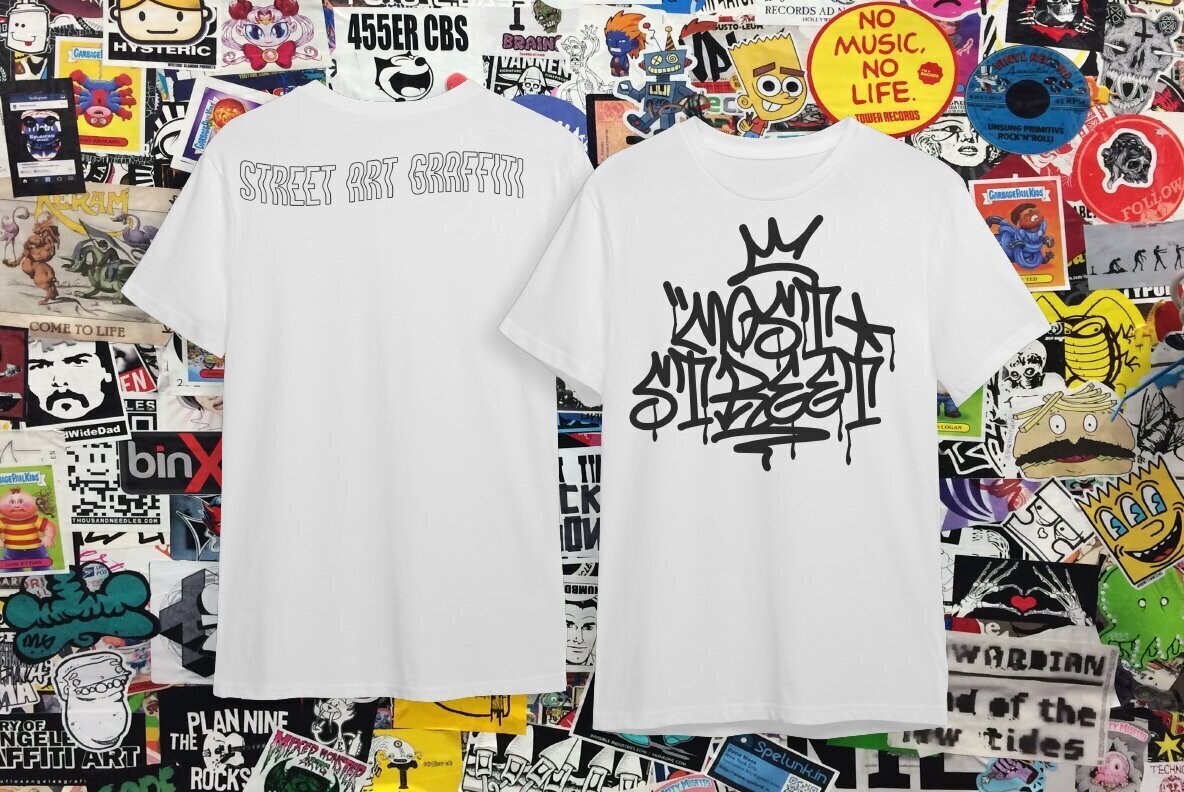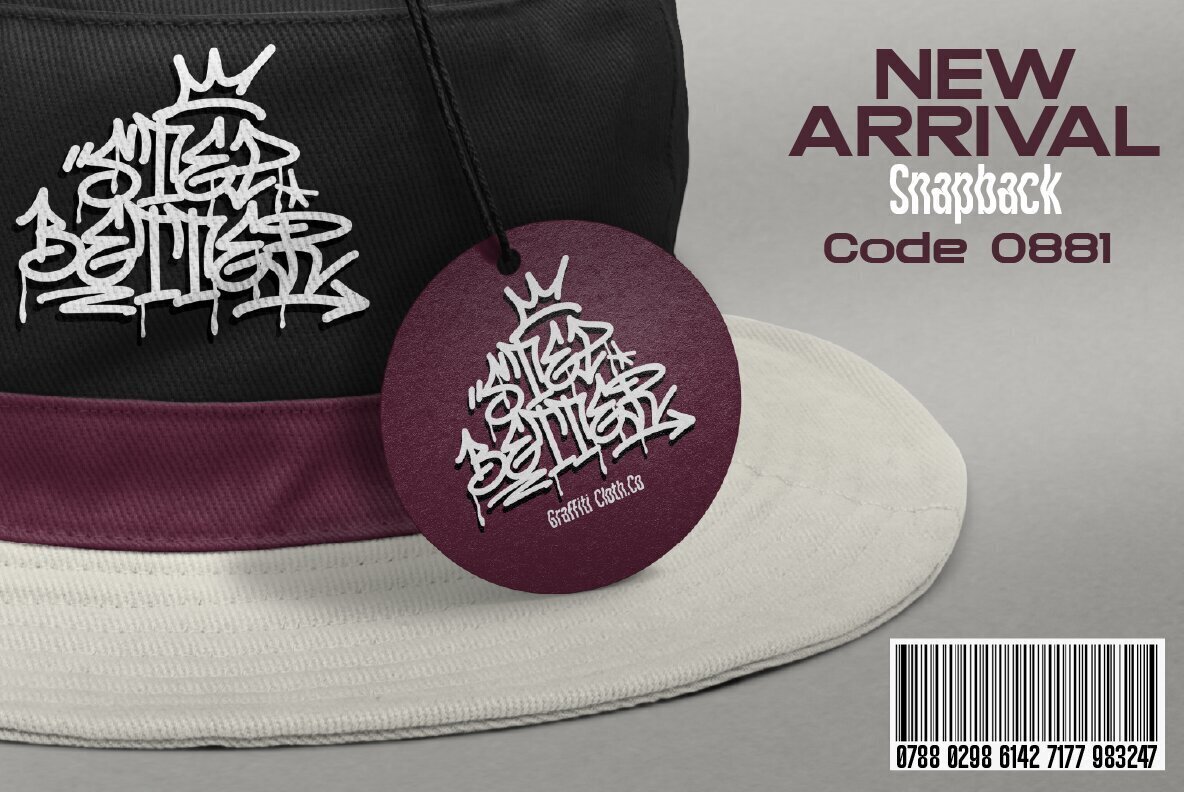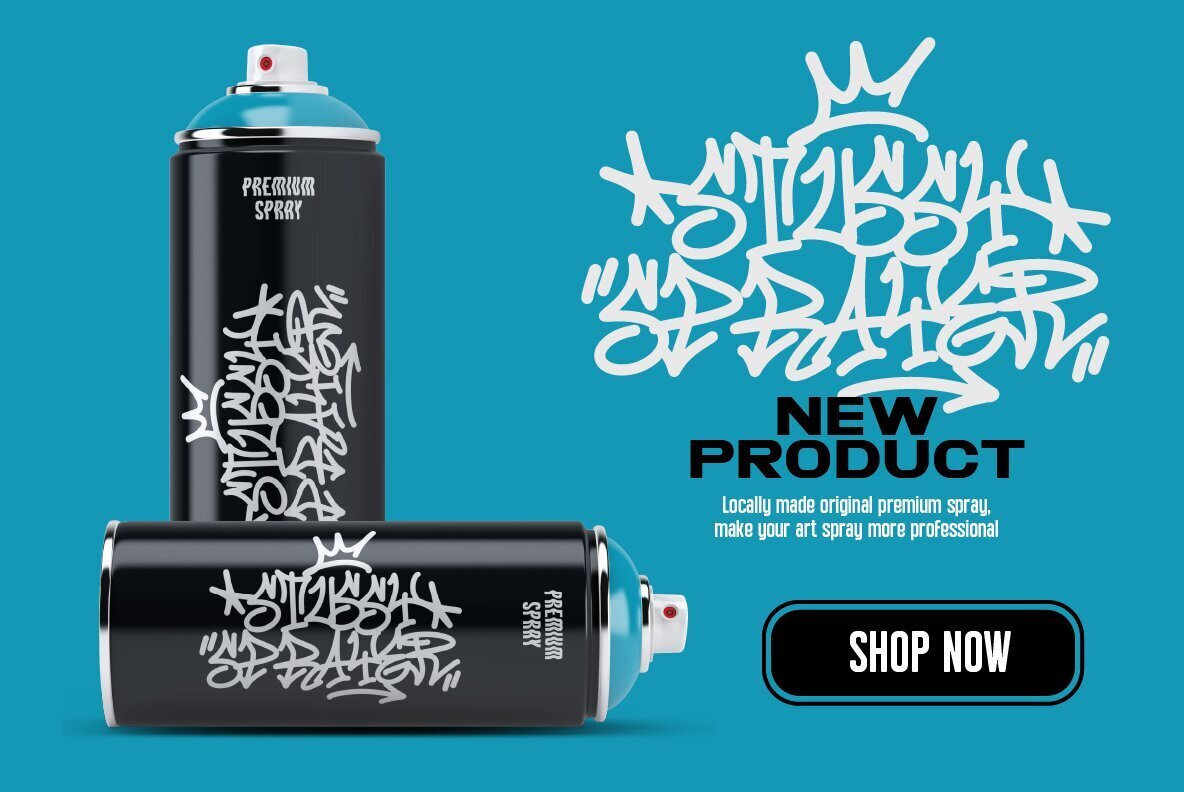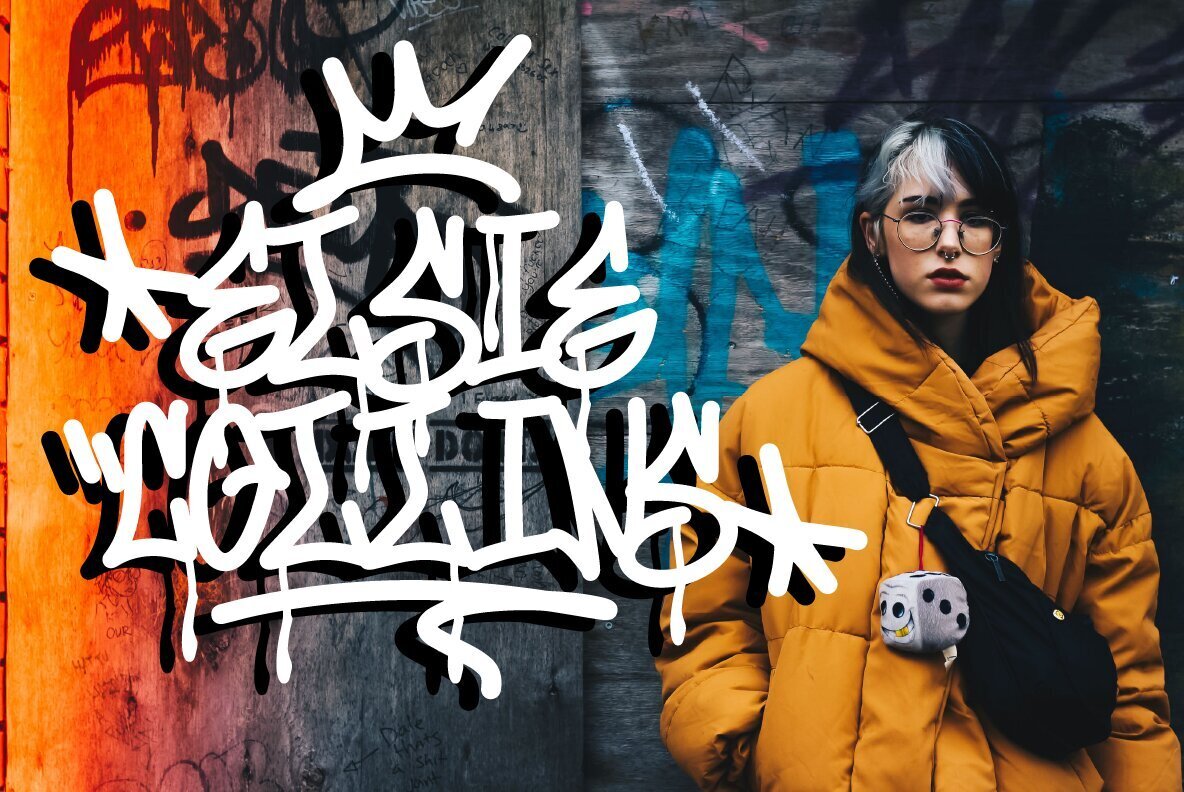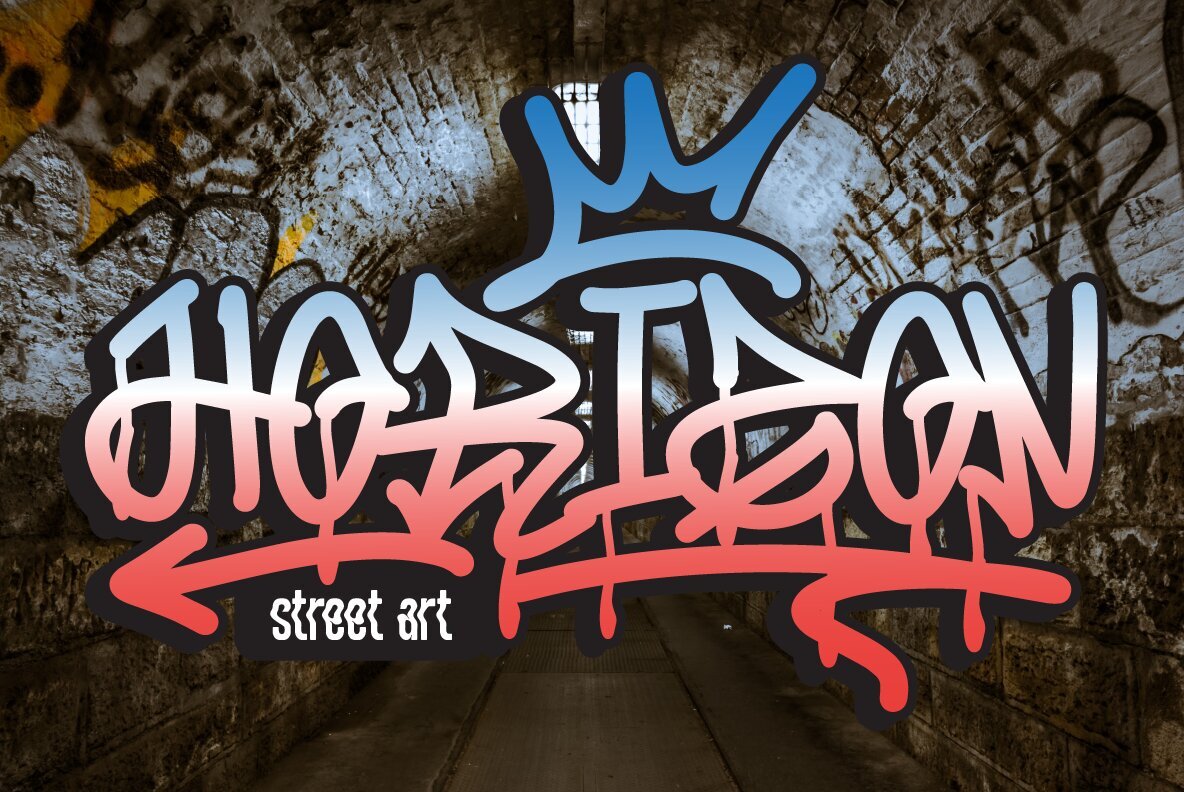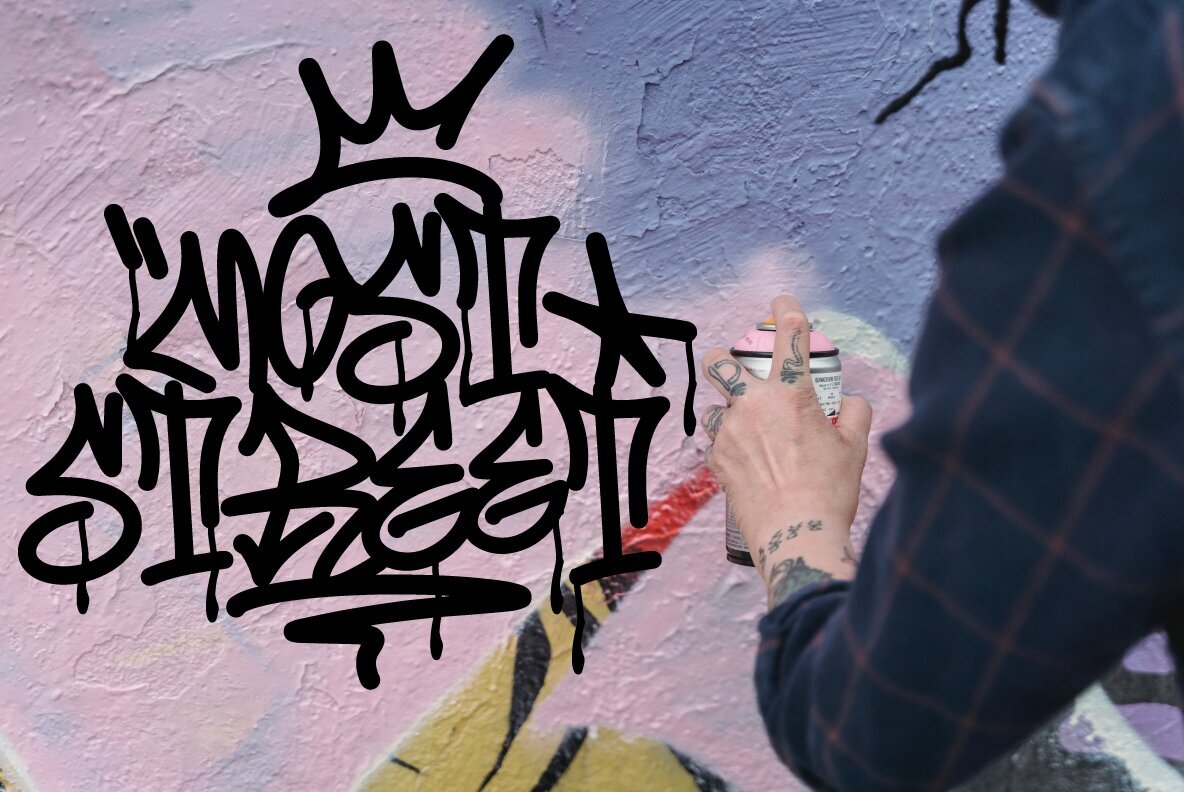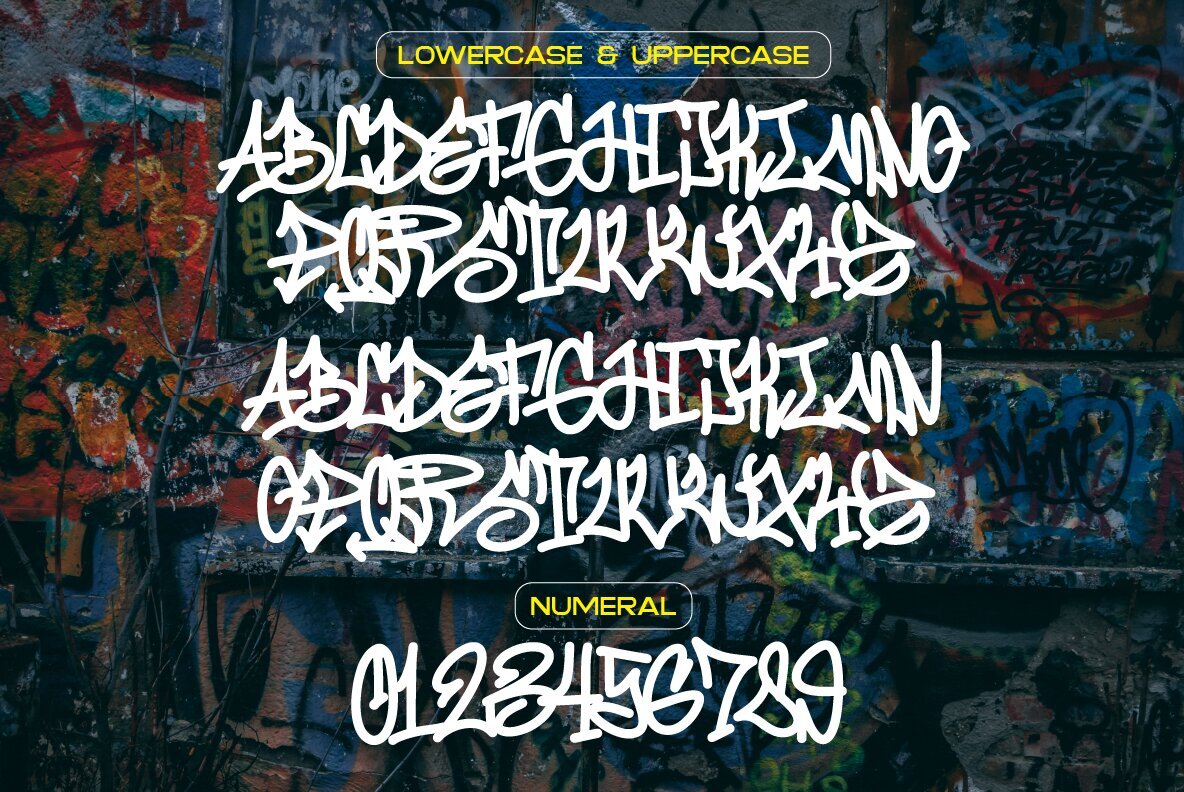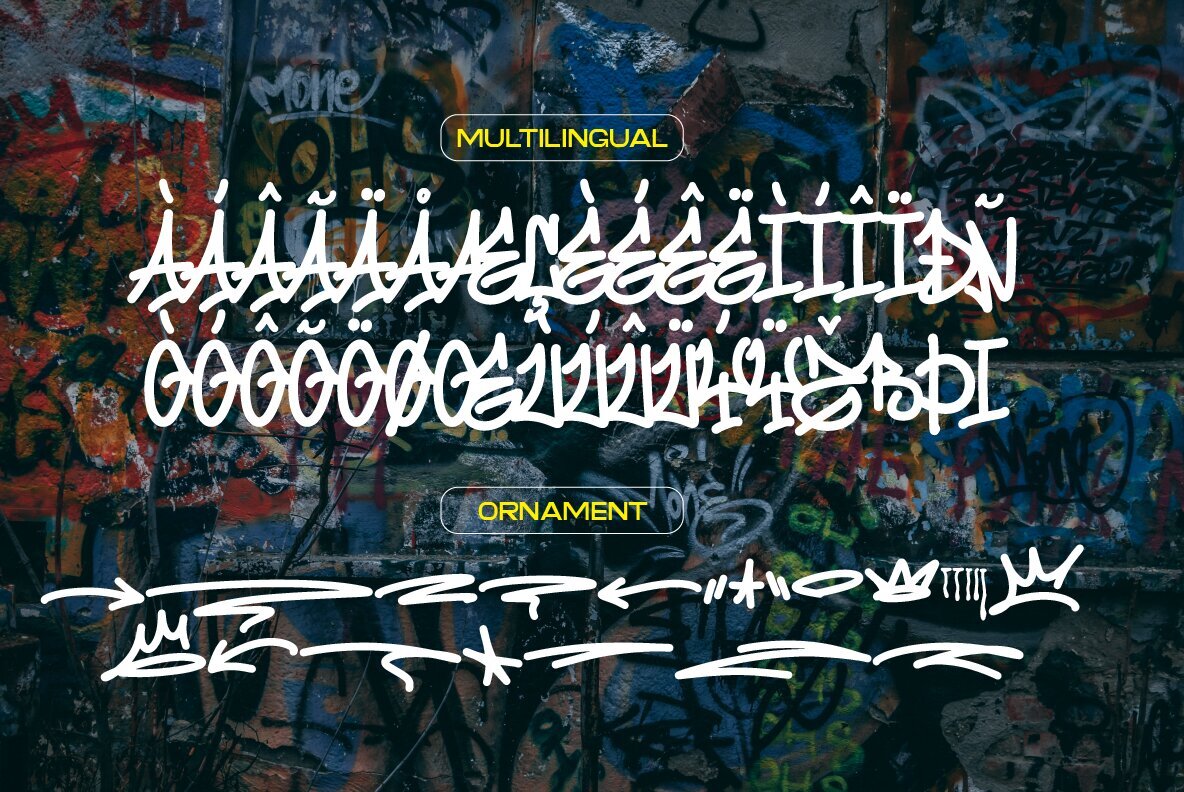
Step Better Font
Immerse yourself in the world of street art with Step Better, a distinctive graffiti-inspired font capturing the essence of urban expression. This typeface echoes the aesthetic of street graffiti with its iconic round tip style often seen in the work of graffiti artists worldwide. Ideal for bringing a dose of authentic street or hip-hop flair to your designs, Step Better is a bold choice for posters, props, and more.Step Better: An Urban Graffiti Typeface